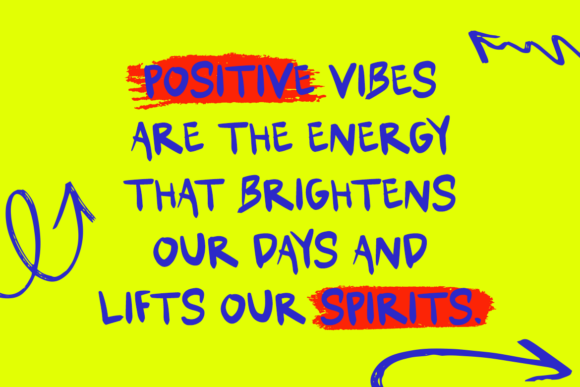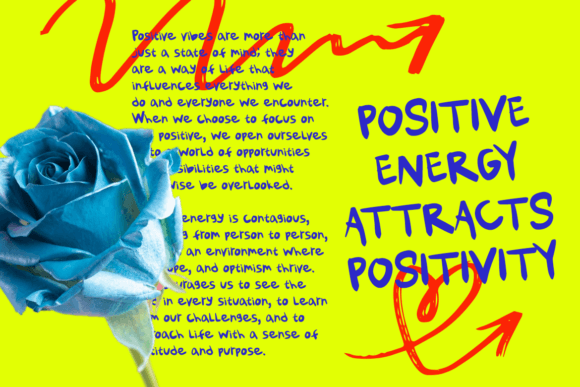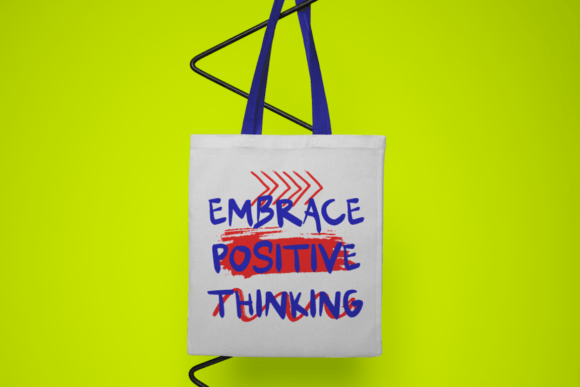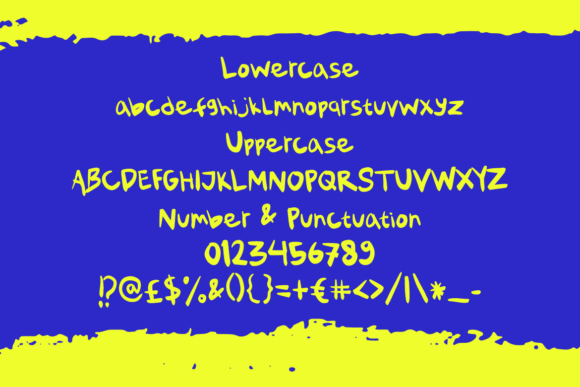
Introduction to Jullybop Font
Have you ever stared at a blank page, struggling to find the perfect font to bring your creative project to life? You know, that moment when you’re trying to convey a sense of whimsy and playfulness, but nothing seems to quite fit the bill? That’s where Jullybop Font comes in – a design resource that’s bursting with energy and creativity, perfect for adding a playful touch to any project.
With its quirky, bold display style, Jullybop Font captures the essence of freestyle brush strokes, making it ideal for designs that need a charming and whimsical feel. Whether you’re working on a logo, branding, or invitation card, this font is sure to add a touch of urban coolness and romantic nostalgia to your work. Plus, with a transparent background and high-quality design, it’s easy to use and customize to fit your needs.
Key Features of Jullybop Font
- High-quality design resource ideal for creative projects, offering a unique and stylish look.
- Comes with a transparent background, making it easy to integrate into various design elements.
- Available in a single font size, making it easy to use in a range of creative projects.
- Features a high resolution of 300 DPI, ensuring crisp and clear text output.
- Unique characteristics include a playful and modern design aesthetic, making it perfect for creative and artistic projects.
Honest Review: Jullybop Font
I recently stumbled upon the Jullybop Font, and I must say it’s a unique find. As a designer, I’m always on the lookout for high-quality design resources that can elevate my creative projects.
One of the standout features of the Jullybop Font is its versatility. The font comes in a variety of styles, making it easy to adapt to different design needs. It’s perfect for creating eye-catching titles, headings, and even entire typography-based designs. The transparent background option also gives designers the freedom to place the font on any background without worrying about clashing colors. ✨
- Supports multiple font styles
Overall, the Jullybop Font is a solid choice for designers looking for a high-quality, versatile font to enhance their creative projects. While it may not be perfect for every project, its unique style and features make it a valuable addition to any design arsenal.
Comic Sans MS is a fun, informal font perfect for creative projects requiring a lighthearted tone. It’s ideal for children’s books, comics, and other design resources where a playful feel is necessary. This font is a great alternative to Jullybop Font when a more casual, approachable atmosphere is desired.
Compared to Jullybop Font, Comic Sans MS has a more rounded appearance and is often associated with a more casual, humorous tone.
Great Vibes is a high-quality, elegant font suitable for a wide range of design projects. It features a transparent background and a clean, modern design, making it perfect for use in creative projects where a sophisticated look is required. This font is a great alternative to Jullybop Font when a more refined, high-end design is needed.